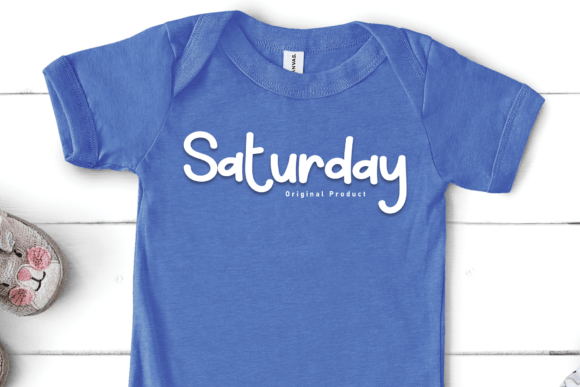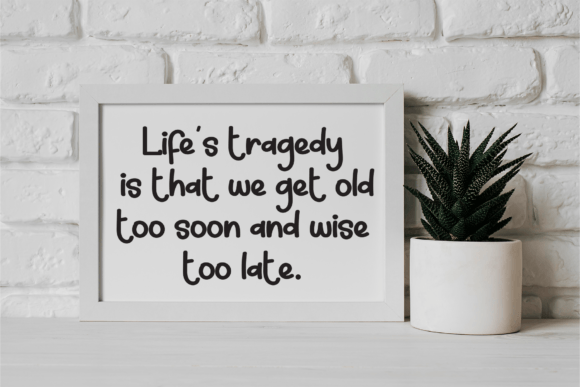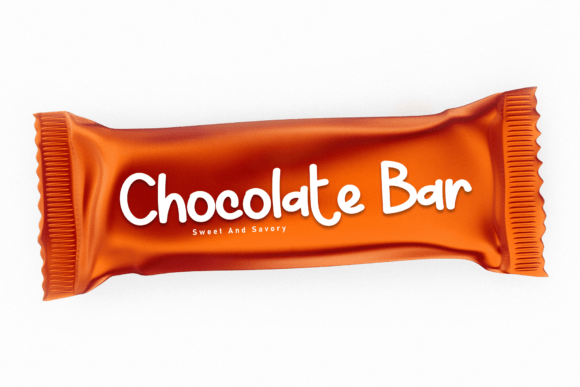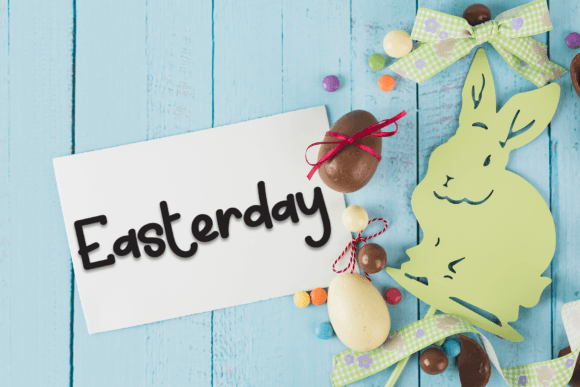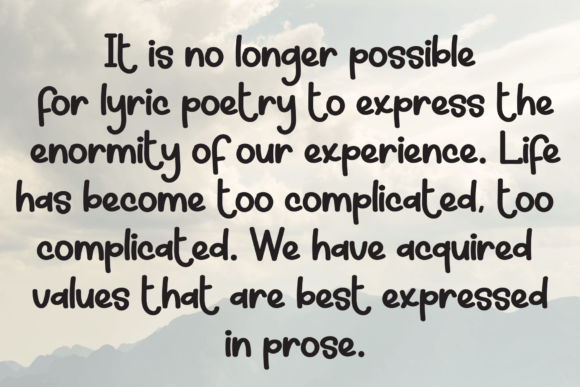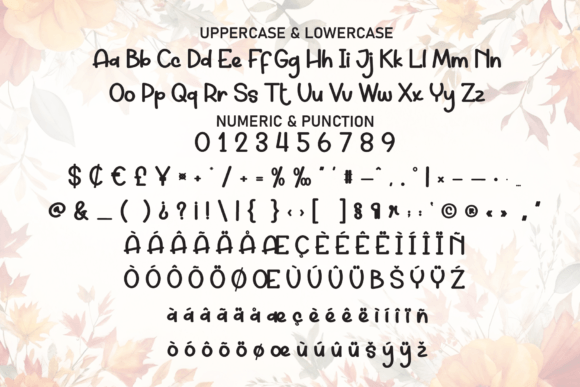
Auntumn Flowers Font: The Cozy and Warm Handwritten Font for Fall
As the leaves change colors and the air grows crisper, we can’t help but feel a sense of coziness and warmth that comes with the autumn season. For designers and crafters, this feeling can be captured and conveyed through the perfect font choice. Introducing Auntumn Flowers Font, a bold handwritten font that embodies the spirit of fall and adds a personal touch to your projects.
What is Auntumn Flowers Font?
Auntumn Flowers Font is a unique and playful handwritten font that is perfect for creating a warm and inviting atmosphere in your designs. Its bold and expressive letters are carefully crafted to evoke the feeling of fall, with a distinctive style that sets it apart from other fonts. Whether you’re working on invitations, decor, or any other project, Auntumn Flowers Font is sure to add a touch of autumnal charm.
Key Features of Auntumn Flowers Font
- Bold and Handwritten Style: Auntumn Flowers Font boasts a bold and handwritten style that is perfect for making a statement in your designs.
- Unique and Playful: Its unique and playful letters are designed to add a personal touch to your projects and make them stand out.
- Perfect for Fall Projects: With its autumnal theme, Auntumn Flowers Font is ideal for designers and crafters working on fall-themed projects, such as invitations, decorations, and more.
- Easy to Use: This font is easy to use and can be applied to a variety of design projects, from digital files to print materials.
Uses for Auntumn Flowers Font
Auntumn Flowers Font is a versatile font that can be used in a variety of design projects, including:
- Invitations: Add a personal touch to your fall-themed invitations, such as harvest party invites, Thanksgiving dinner invites, or Halloween party invites.
- Decor: Use Auntumn Flowers Font to create beautiful fall-themed decor, such as printable art, signs, or banners.
- Stationery: Add a touch of autumnal charm to your stationery, including journals, planners, or greeting cards.
- Digital Files: Use Auntumn Flowers Font to create stunning digital files, such as printable quotes, fall-themed wallpapers, or social media graphics.
Why Choose Auntumn Flowers Font?
With so many fonts available, why choose Auntumn Flowers Font? Here are just a few reasons:
- Unique Style: Auntumn Flowers Font offers a unique and distinctive style that sets it apart from other fonts.
- Easy to Read: Despite its bold and playful style, Auntumn Flowers Font is easy to read, making it perfect for use in a variety of design projects.
- High-Quality Design: This font is designed with high-quality and attention to detail, ensuring that it will look great in any design project.
Tips for Using Auntumn Flowers Font
Here are a few tips for getting the most out of Auntumn Flowers Font:
- Use it Sparingly: While Auntumn Flowers Font is a beautiful font, it can be overwhelming if used too much. Use it sparingly to add a touch of autumnal charm to your designs.
- Pair it with Other Fonts: Auntumn Flowers Font pairs well with other fonts, such as serif or sans-serif fonts. Experiment with different font combinations to find the perfect look for your design.
- Experiment with Colors: Autumn is all about warm and rich colors. Experiment with different color palettes, such as oranges, yellows, and reds, to find the perfect look for your design.
Auntumn Flowers Font is a beautiful and unique handwritten font that captures the cozy and warm feeling of fall. Its bold and playful style makes it perfect for adding a personal touch to your designs, from invitations to decor and more. With its ease of use and high-quality design, Auntumn Flowers Font is a must-have for designers and crafters looking to add a touch of autumnal charm to their projects.